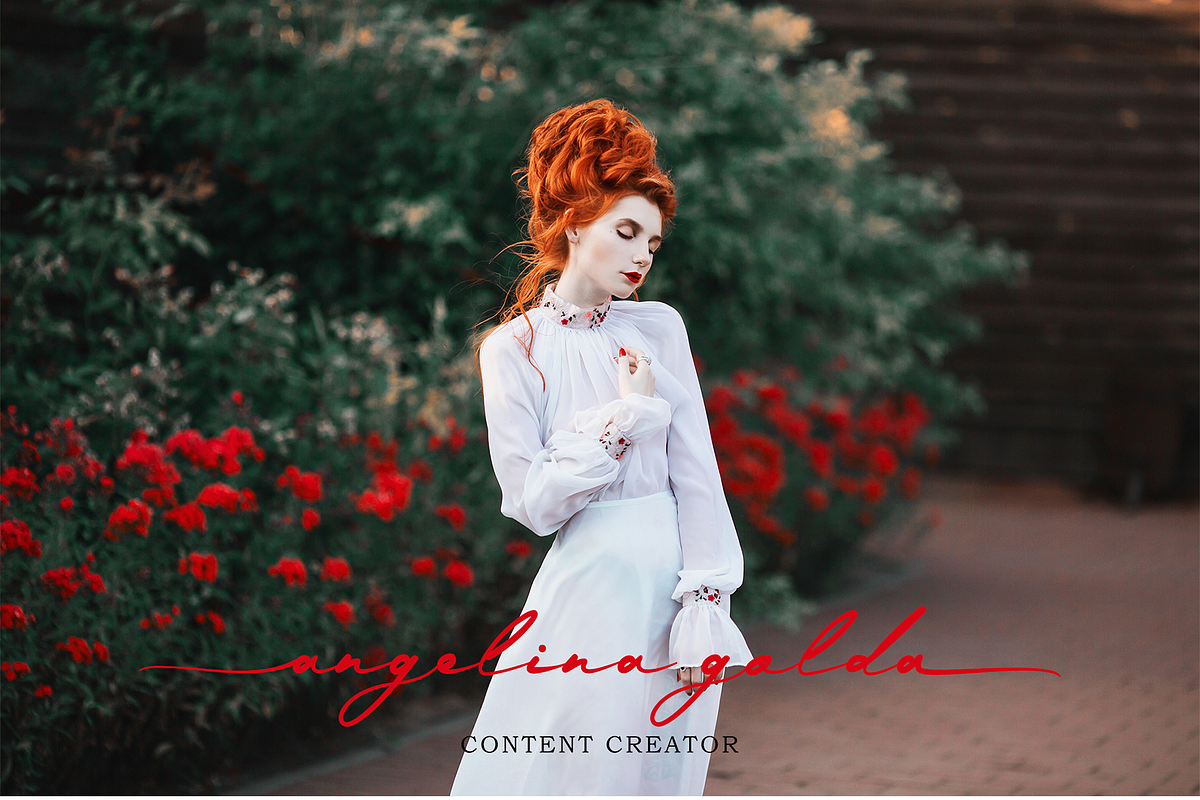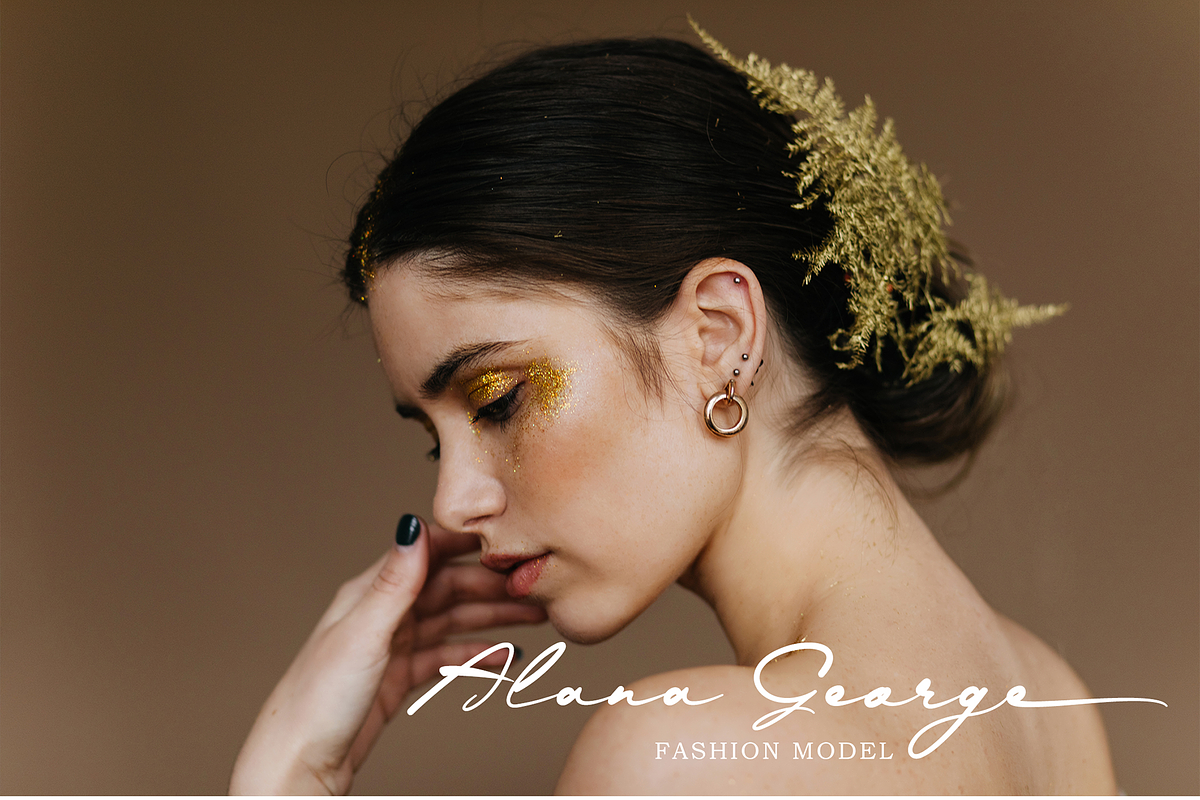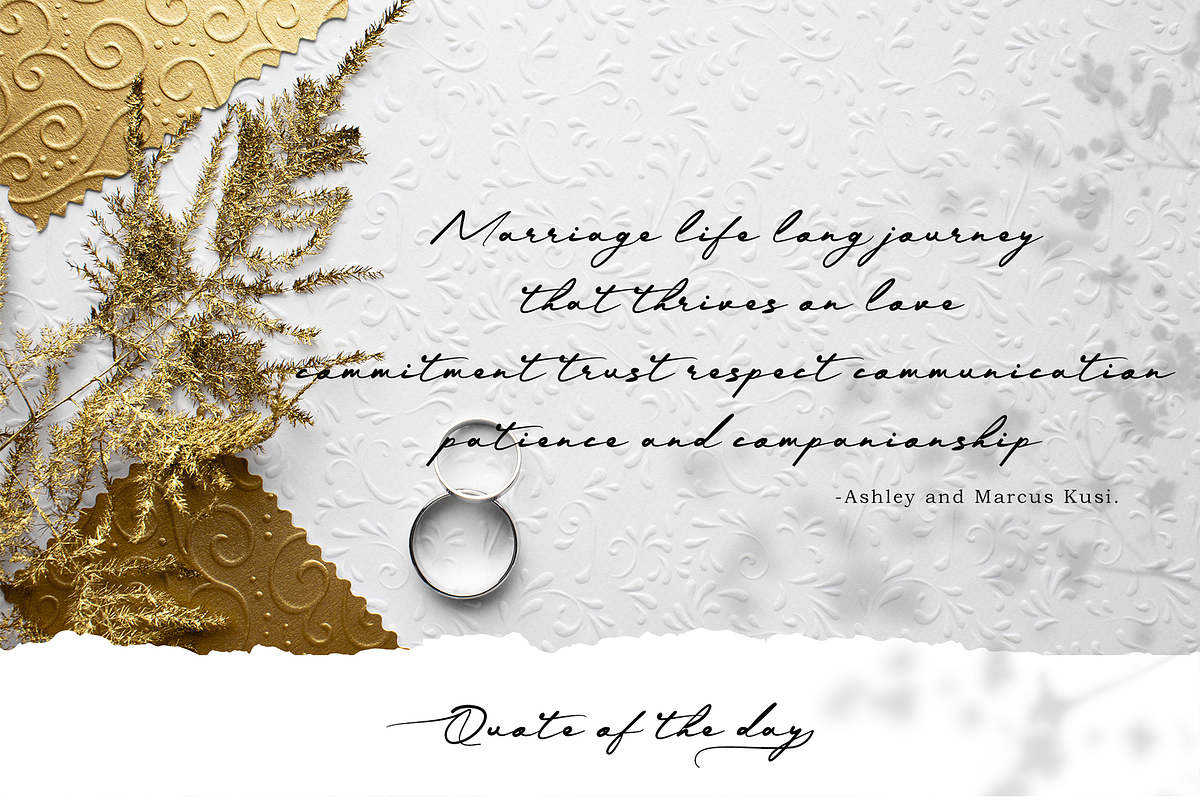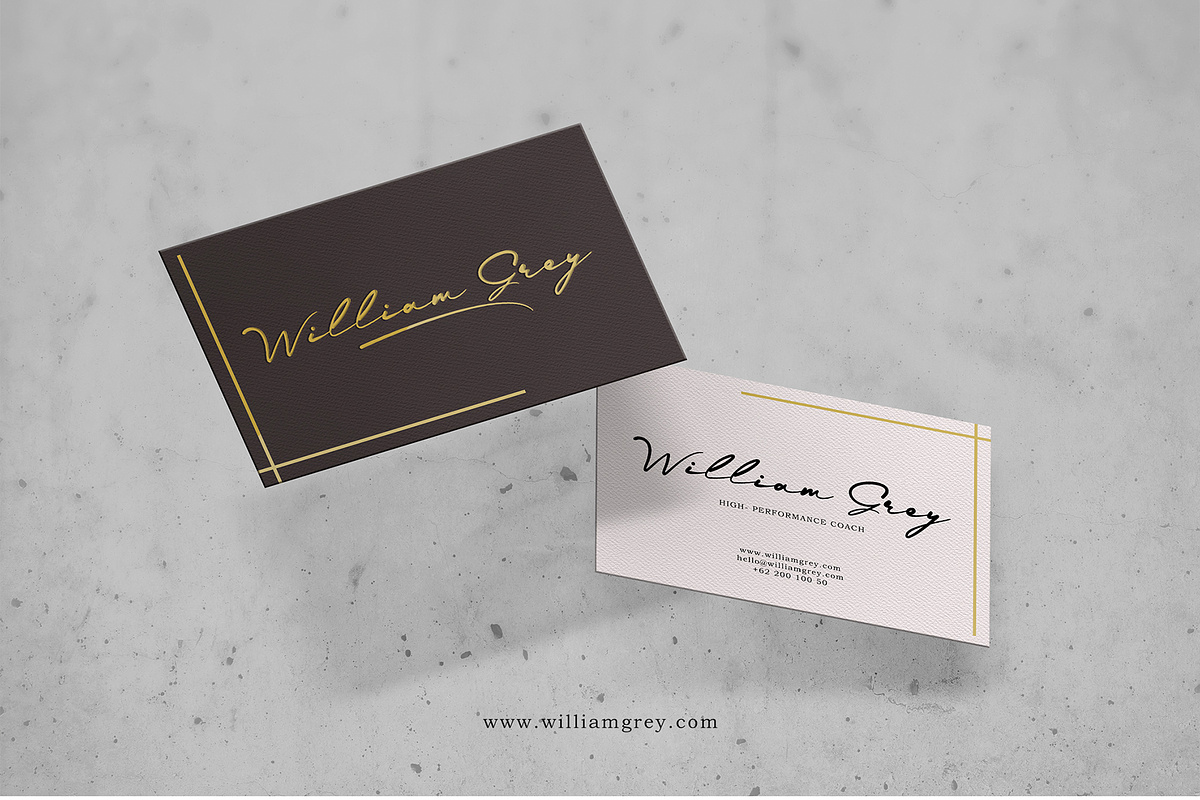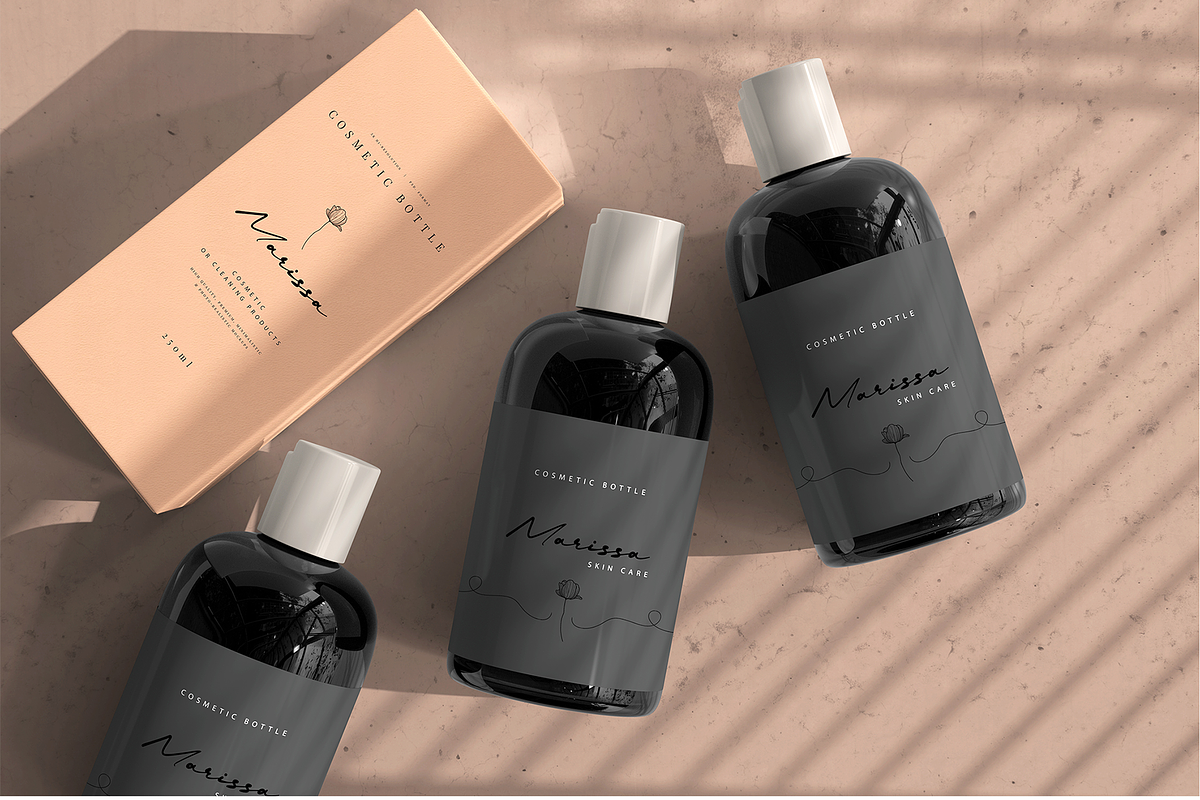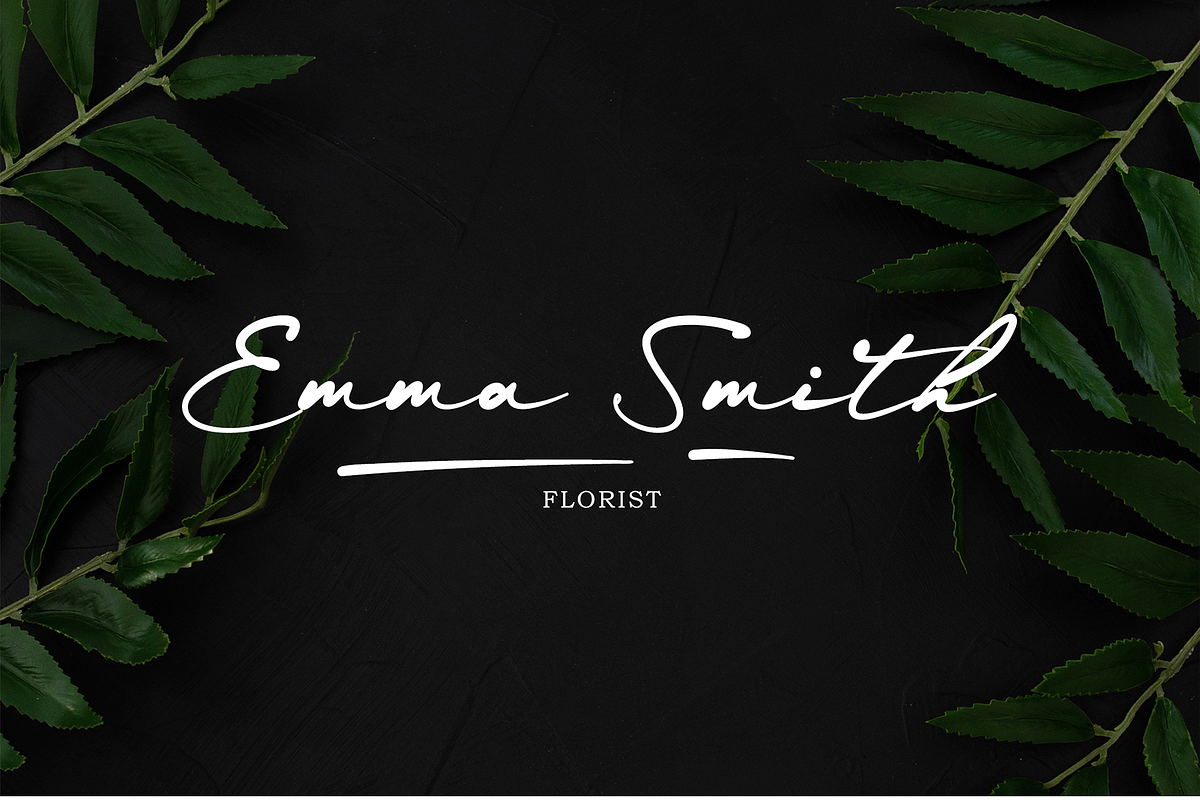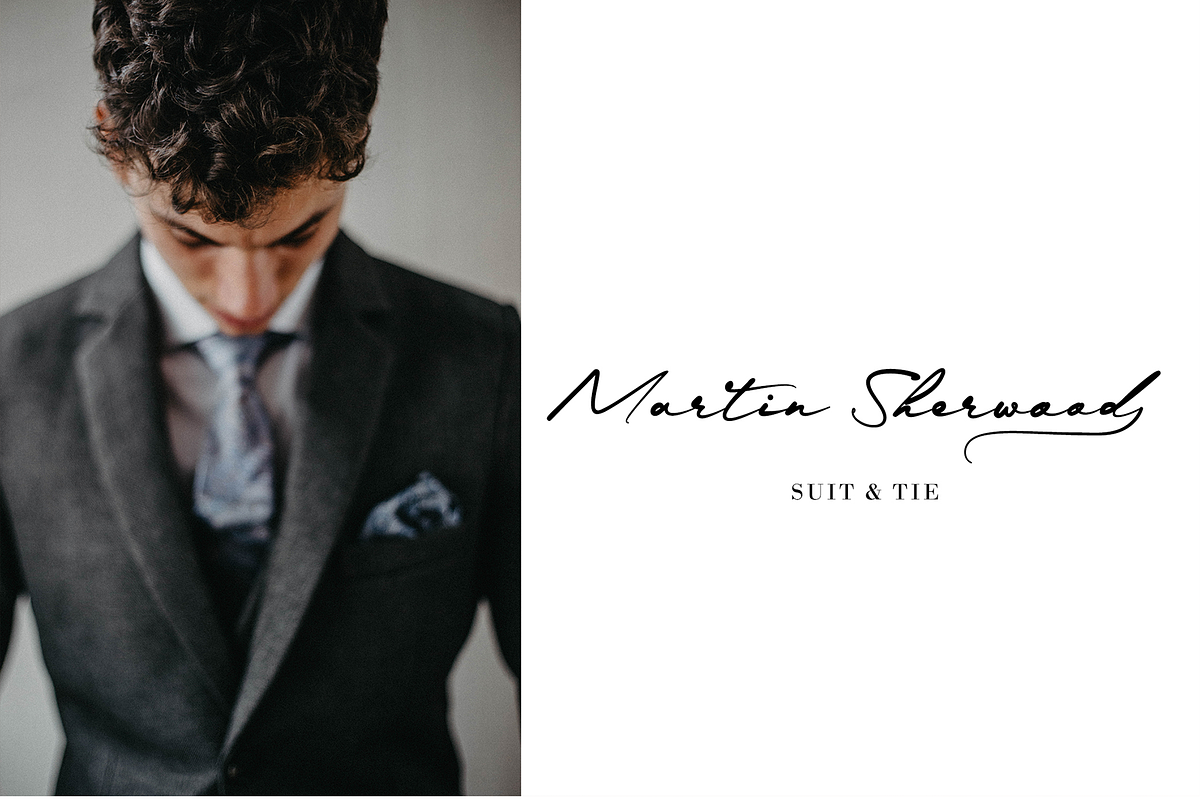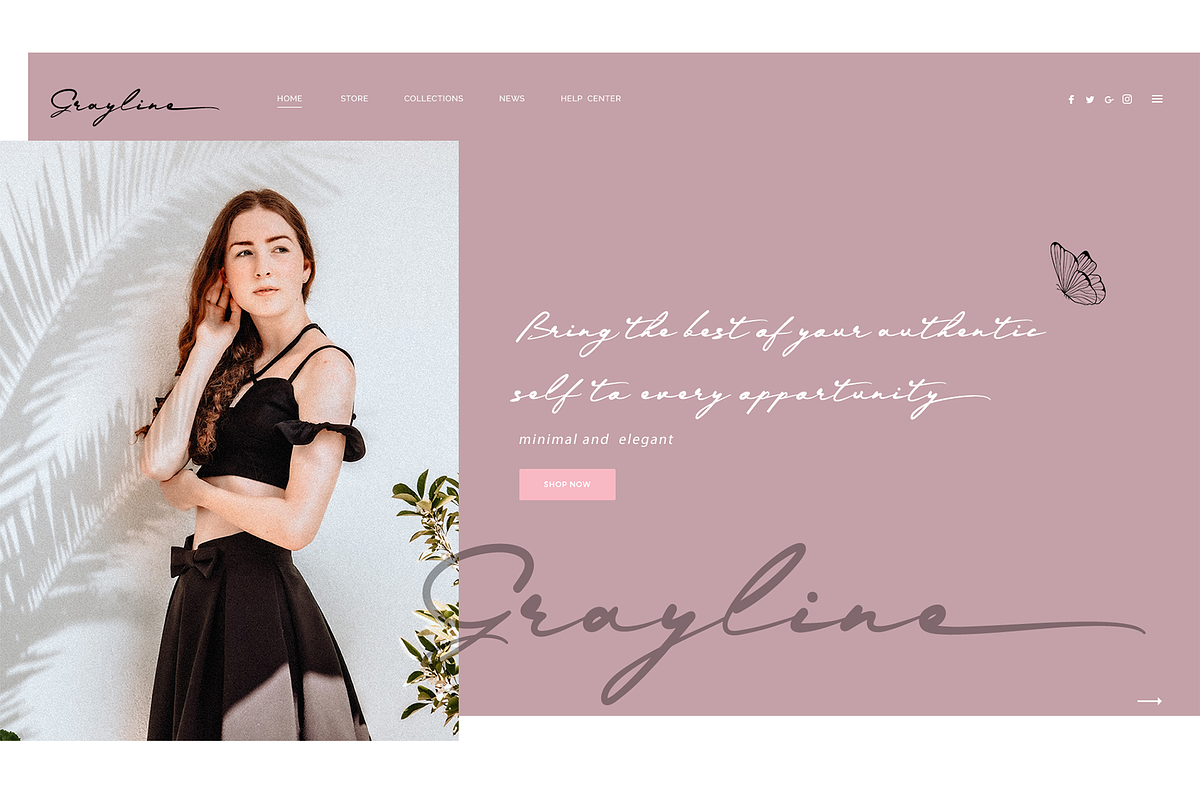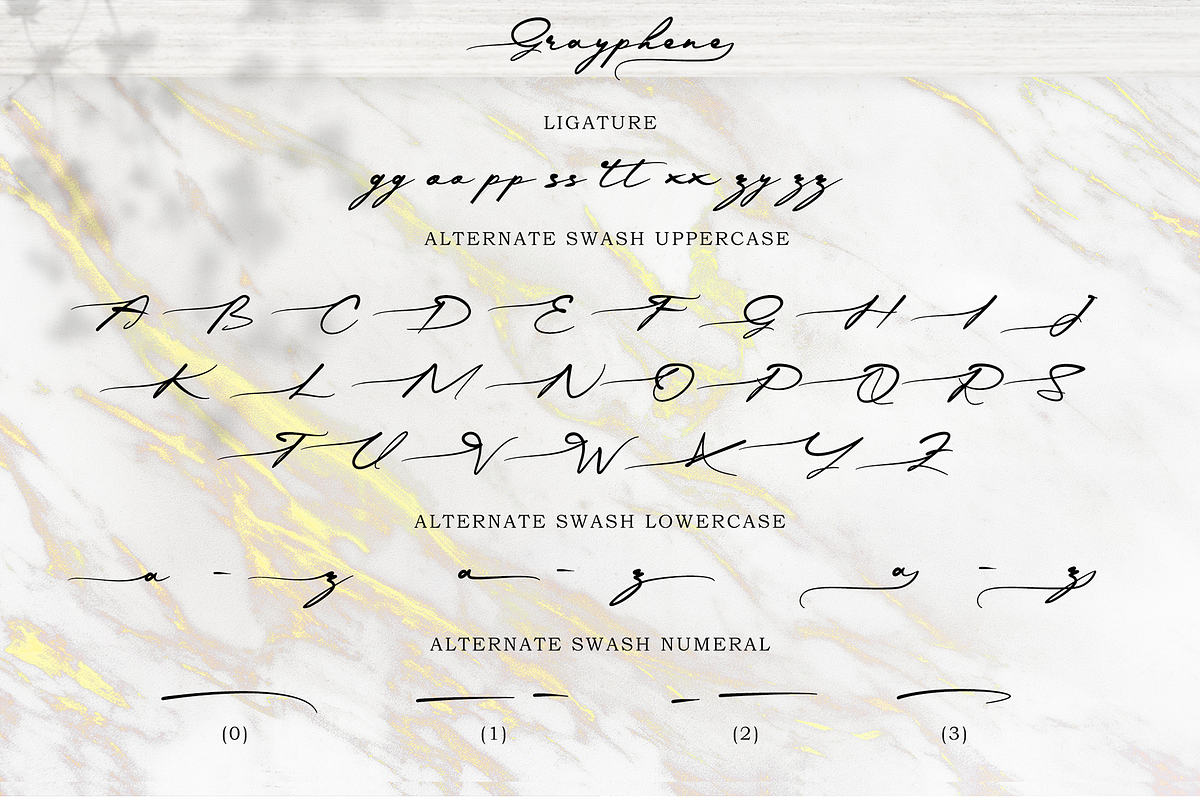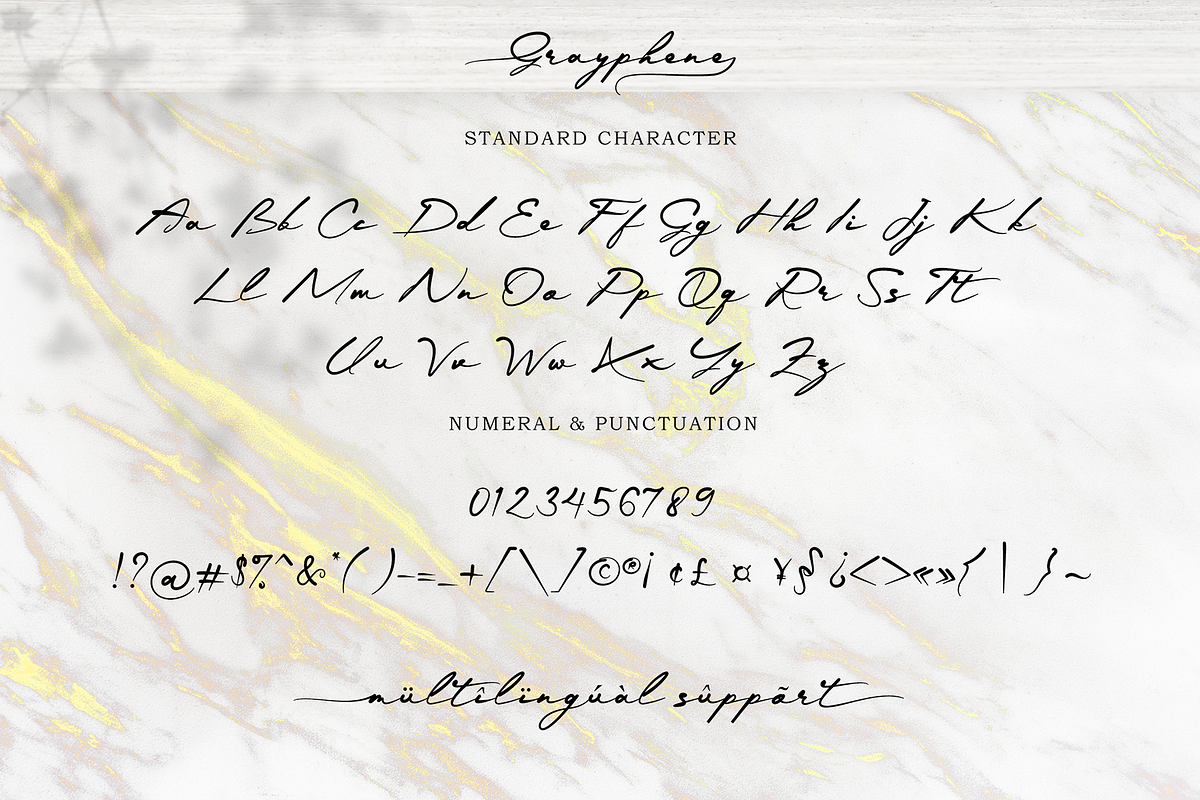
Grayphene - Signature Font
Grayphene - Signature Font by erlosDESIGN
Grayphene is a romantic and sweet calligraphy typeface with characters that dance along the baseline. It has a casual, yet elegant touch. This font is PUA encoded which means you can access all of the glyphs and swashes with ease! The font has a smooth texture, so it would be perfect for your design.